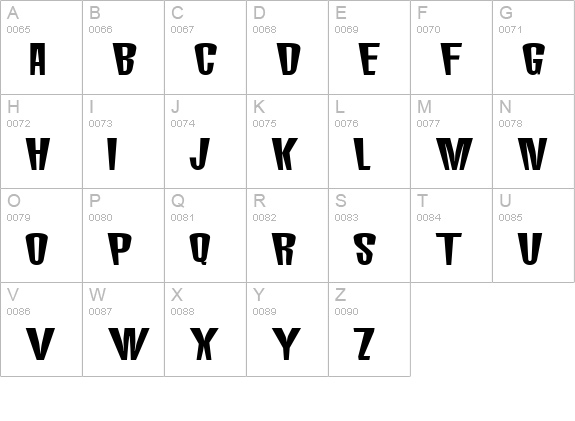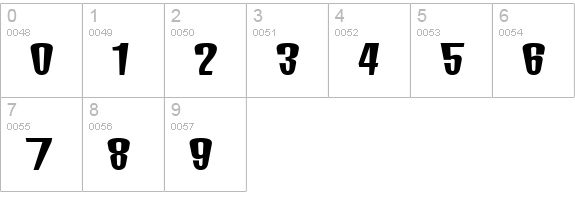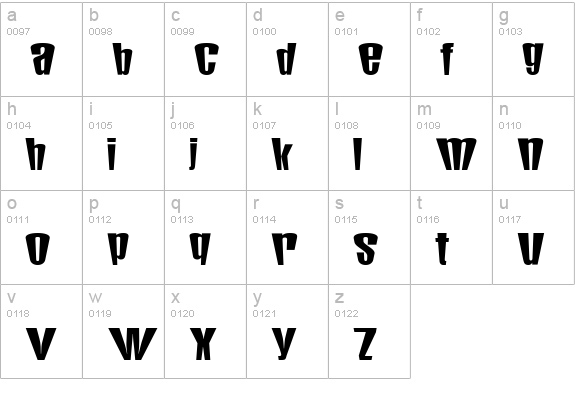
MunsterMash Bold Font Details
MunsterMash Bold is a strong, high-contrast variant in the MunsterMash typeface family \xE2\x80\x94 well suited to headlines, attention-grabbing titles, and strong calls-to-action.
Introducing MunsterMash Bold font - a captivating and bold typeface that exudes a perfect balance of playfulness and professionalism. With its unique and quirky design, MunsterMash Bold is the perfect choice for eye-catching headlines, branding, and creative projects that demand attention. This versatile font is ideal for a wide range of design applications, from posters and packaging to social media graphics and website design. Its bold and striking appearance ensures that your message stands out and leaves a lasting impression on your audience. And the best part? MunsterMash Bold font is completely free to download at FontsMarket.com! That's right, you can elevate your designs with this stunning typeface without spending a dime. Don't miss out on the opportunity to enhance your creative projects with this fantastic font - download MunsterMash Bold today and let your creativity shine!